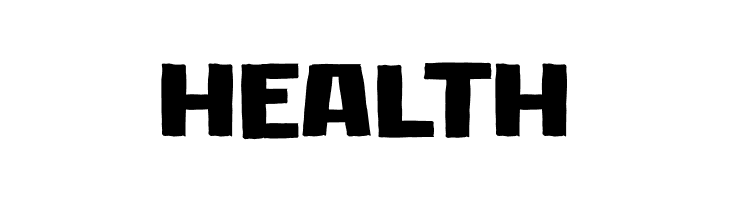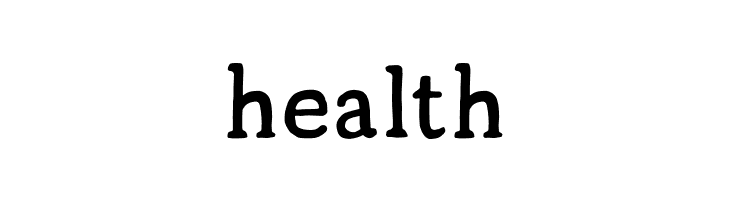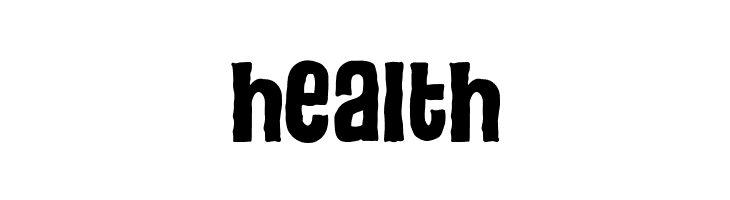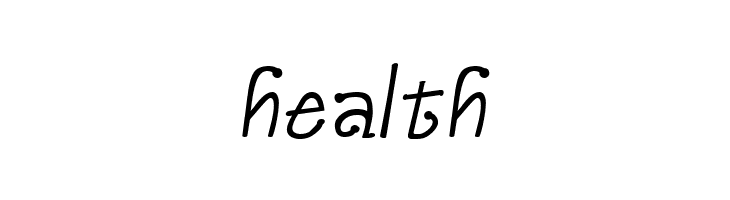
An ornate and classic font with intricate curves and flourishes.
A bold, brush-style font with dynamic, handcrafted strokes.
A bold, clean sans-serif font with geometric shapes and uniform strokes.
A clean, modern sans-serif font with uniform stroke width and geometric letterforms.
A bold, condensed font with modern and playful lowercase variations.
A bold slab serif font with high contrast and a classic yet modern appeal.
A bold, expressive script font with dynamic, fluid strokes.
A sleek, modern, light italic font with balanced character spacing.
A clean, modern typeface with uniform stroke width and excellent readability.
A bold, modern typeface with strong, uniform letterforms.
Bold, italicized typeface with a modern and dynamic style.
A bold, modern font with thick, uniform strokes and a strong geometric structure.
A bold, modern sans-serif font with clean lines and a slightly condensed width.
A modern sans-serif italic font with clean lines and a dynamic style.
An artistic, hand-drawn font with whimsical curves and decorative elements.
A traditional blackletter font with intricate, angular strokes and a medieval aesthetic.
A classic blackletter font with intricate, angular strokes and a medieval appearance.
A bold blackletter font with high contrast and intricate detailing.
A bold, distressed font with a vintage, industrial aesthetic.
A hand-drawn, light font with a geometric yet organic style.
A classic serif font with elegant strokes and pronounced serifs.
An elegant italic serif font with smooth curves and moderate contrast.
A bold, classic serif font with strong strokes and pronounced serifs.
A decorative font made of human figures forming letters and numbers in a Renaissance style.
Expressive handwritten font with dynamic strokes and a natural flow.
A classic serif font with Renaissance-inspired elegance and moderate contrast.
A classic serif font with sharp serifs and balanced stroke contrast, exuding elegance.
A classic, elegant serif font with graceful curves and pronounced serifs.
A dynamic, handwritten script with expressive, fluid strokes.
A bold, geometric font with a modern, Art Deco-inspired design.
A bold, geometric font with sharp angles and circular cutouts, ideal for decorative use.
A dynamic, expressive handwritten font with fluid strokes and artistic flair.
A dynamic and expressive handwritten font with fluid, organic strokes.